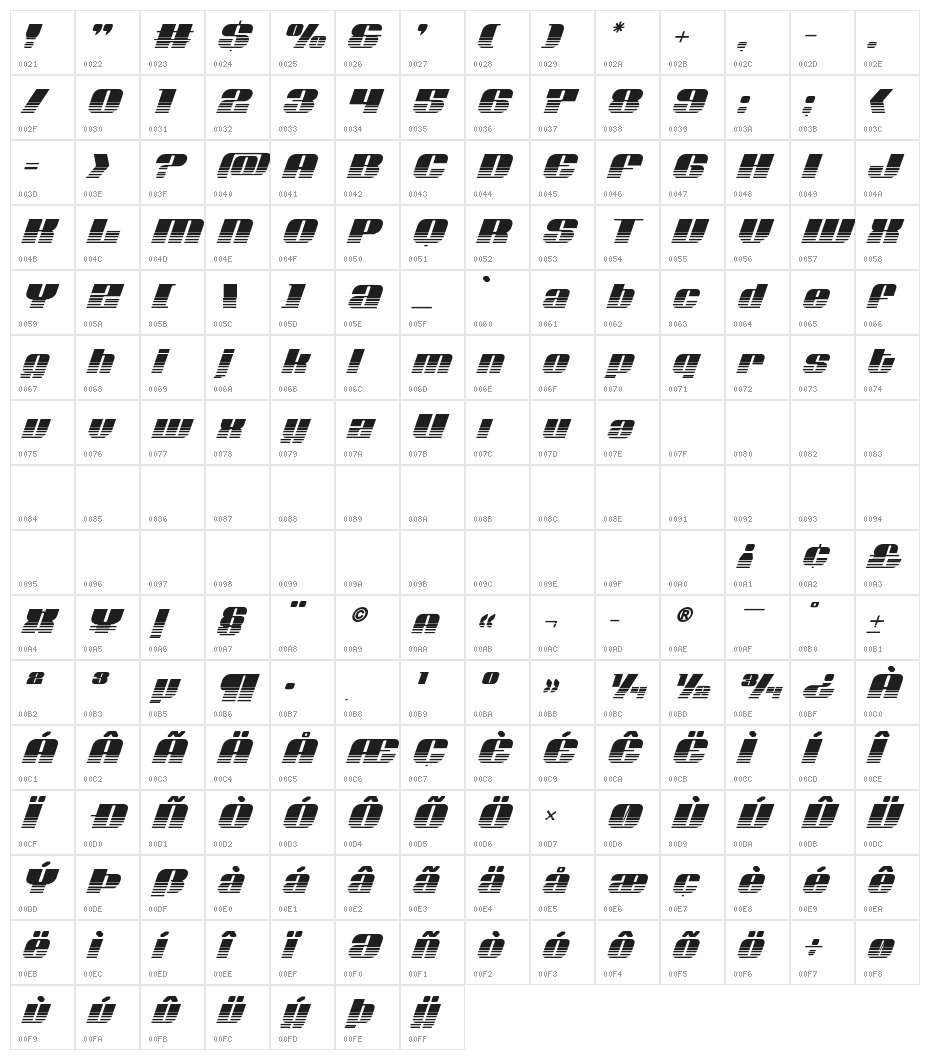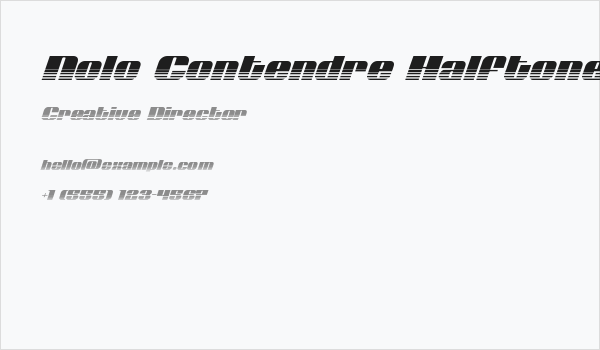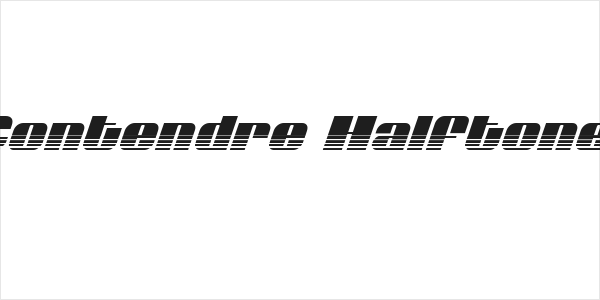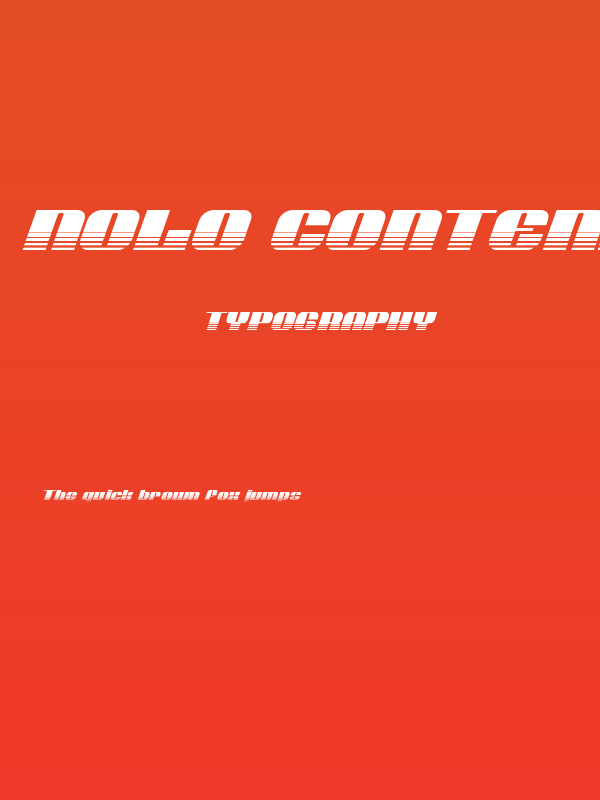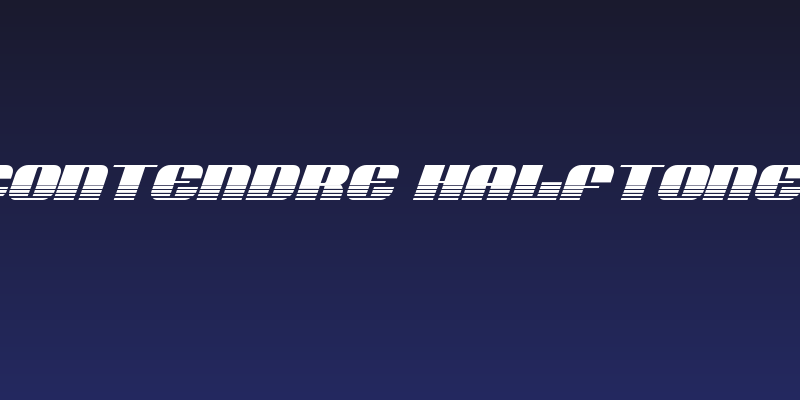
Nolo Contendre Halftone Italic Font
Nolo Contendre Halftone Italic Description
This font features a bold, italicized style with a unique halftone effect that gives it a dynamic and modern appearance. The characters are designed with horizontal lines that create a sense of motion and energy, making it stand out in any design. The uppercase and lowercase letters maintain a consistent style, with the halftone effect applied uniformly across all characters. The numbers and special characters are also designed to match the overall aesthetic, ensuring a cohesive look. This font is ideal for projects that require a bold and eye-catching typeface.
| Proposed Projects | Ideal for posters, branding, sports team logos, and any project needing a bold, energetic typeface. |